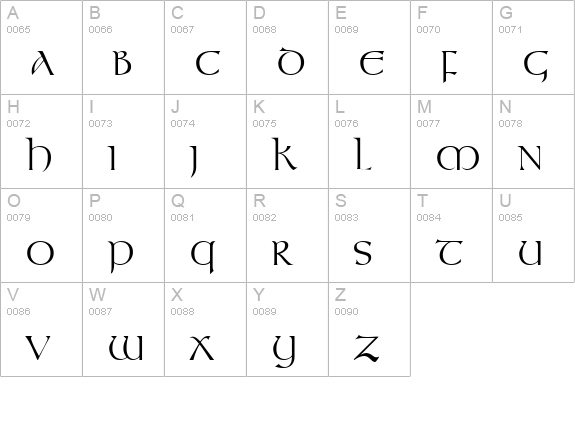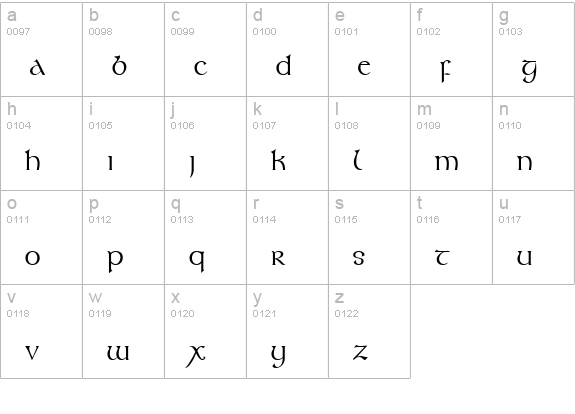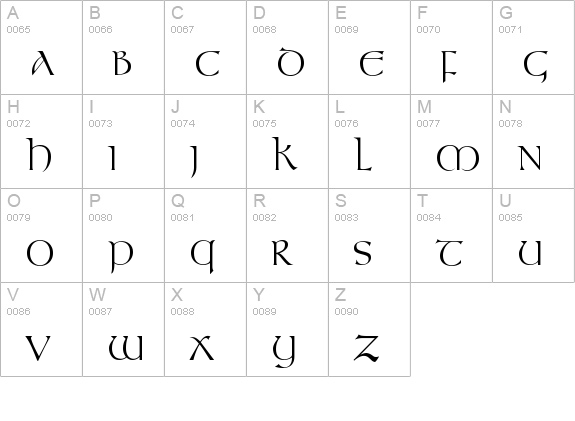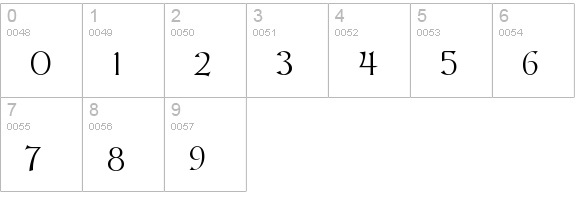
Umber SSi is a beautifully crafted font that effortlessly blends modernity with a touch of elegance. Its smooth curves and sharp edges create a harmonious balance, making it a versatile choice for a wide range of design projects. Whether used for headlines, logos, or body text, this font exudes sophistication and professionalism. What makes Umber SSi even more appealing is the fact that it is available free of charge. Yes, you read that right - this stunning font can be freely downloaded at FontsMarket.com. Gone are the days of searching for the perfect font and worrying about breaking the bank. With Umber SSi, you have access to a top-quality typeface without spending a dime. Designed with meticulous attention to detail, Umber SSi offers a wide variety of weights and styles, allowing you to experiment and find the perfect fit for your creative endeavors. From light and airy to bold and impactful, this font has it all. Its versatility extends beyond traditional projects, making it an excellent choice for digital designs, print materials, and everything in between. Whether you are a professional designer or a hobbyist, Umber SSi is sure to become your go-to font. Its timeless appeal and effortless legibility make it suitable for any project, from branding and advertising to invitations and websites. With Umber SSi, your designs will stand out from the crowd and leave a lasting impression on your audience. So why wait? Visit FontsMarket.com today and discover the beauty and versatility of Umber SSi. Download this font for free and elevate your designs to new heights. Embrace the freedom of creativity without any cost - Umber SSi is here to help you shine.